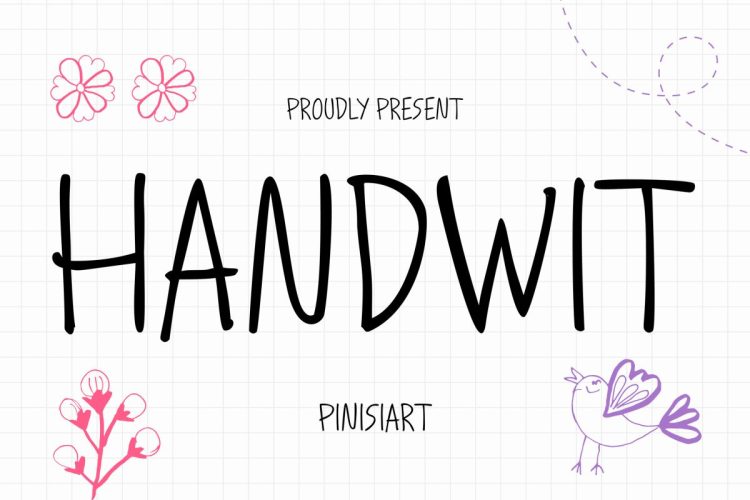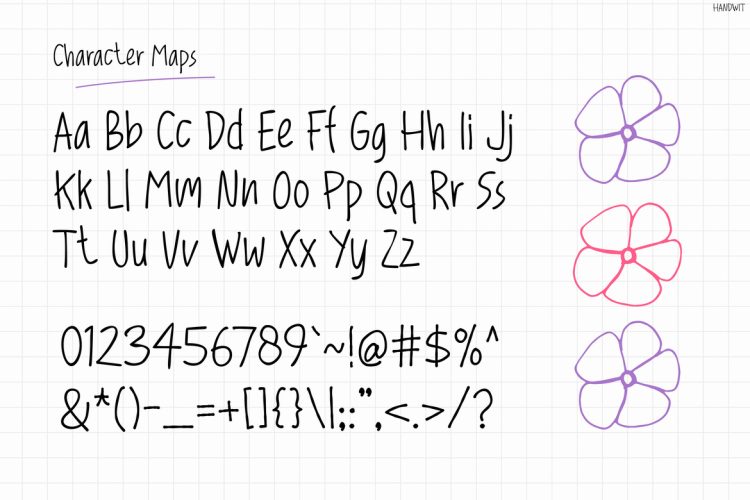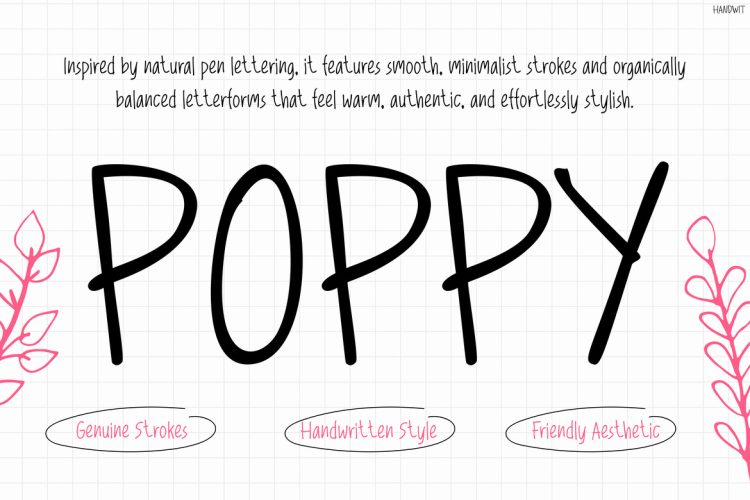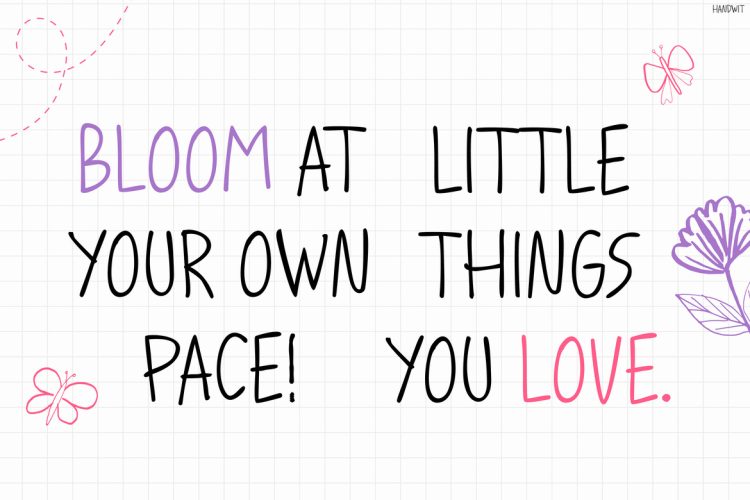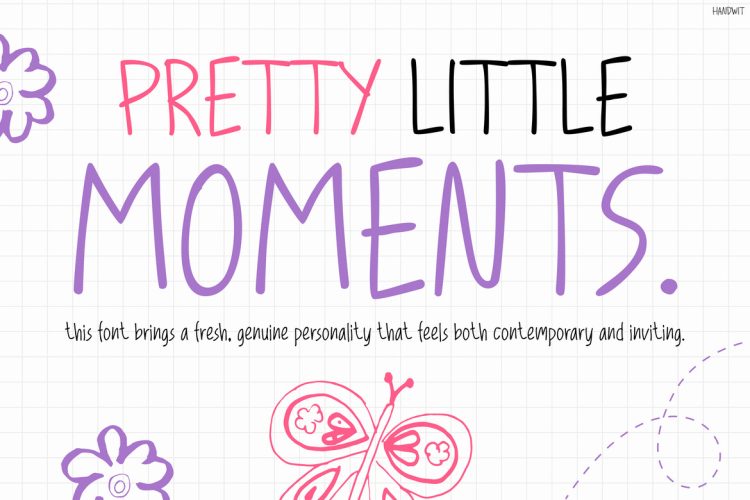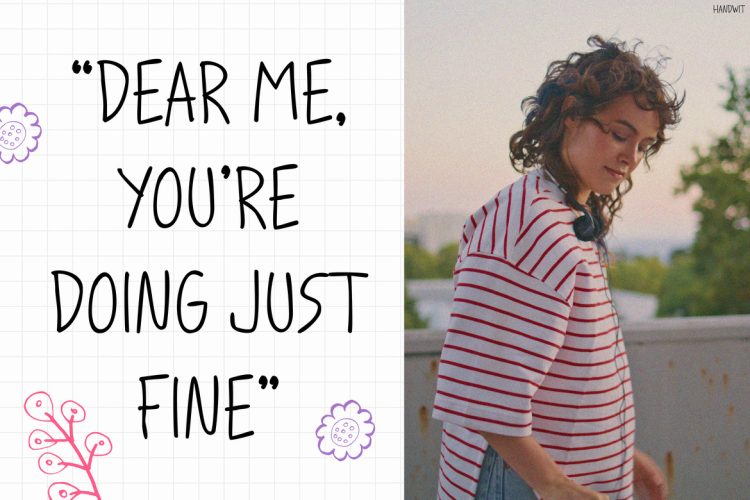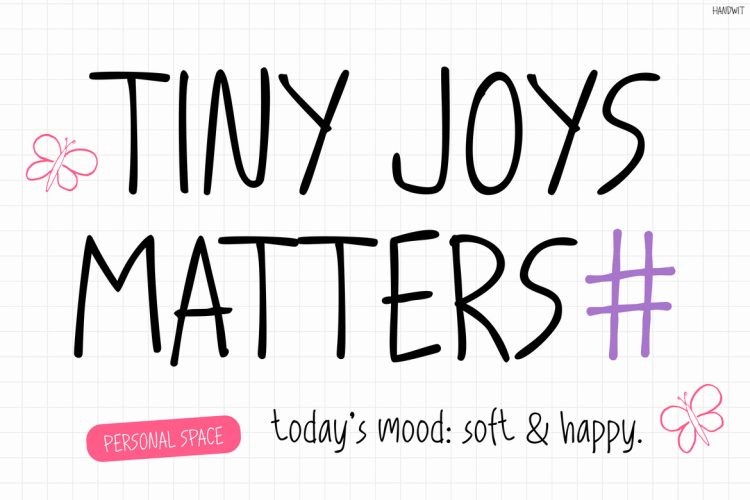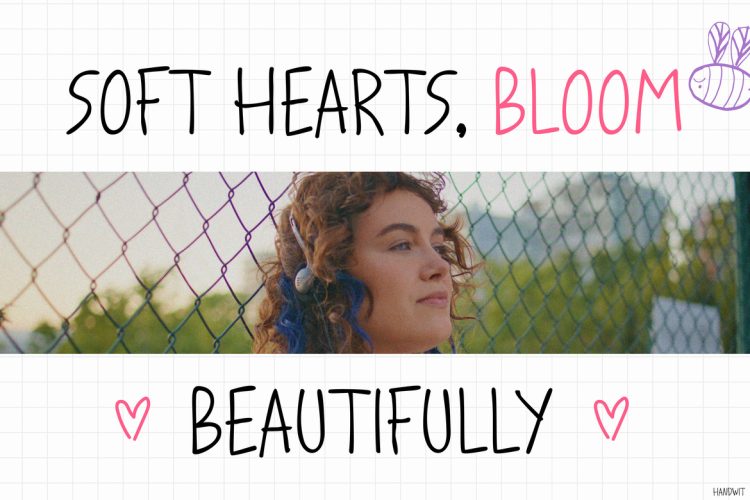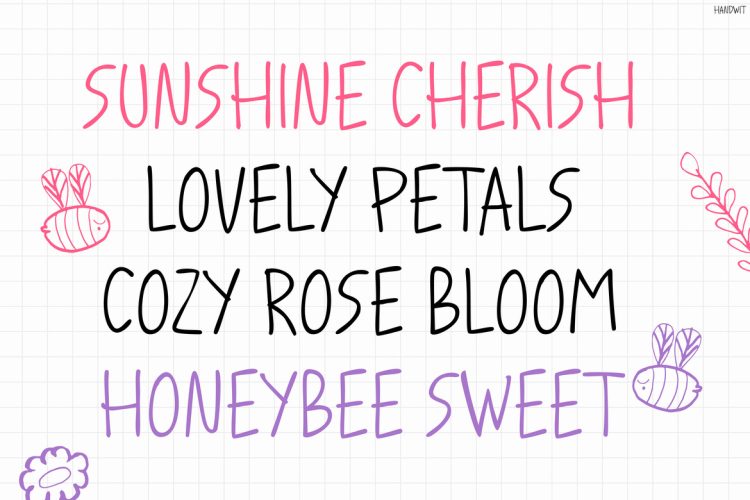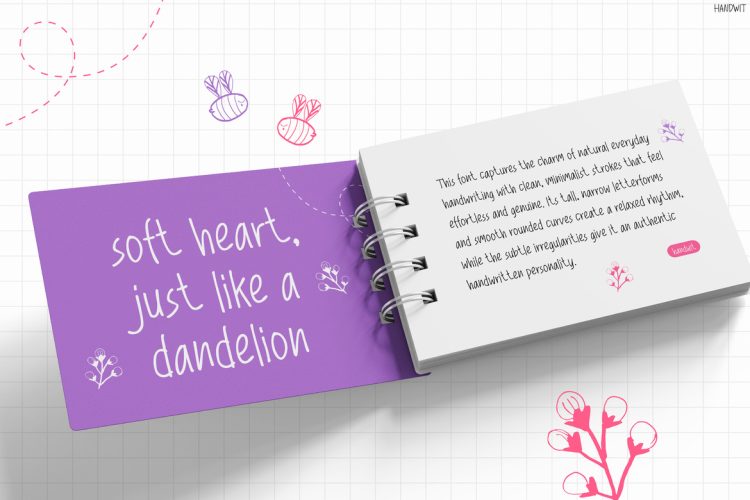
Handwriting Font Handwit โ Write Every Feeling with Heart
Handwriting Font Handwit captures the warmth of genuine handwriting with smooth, relaxed strokes that make every word feel personal and inviting. Unlike ordinary handwritten fonts, Handwit embraces natural imperfections that create authentic charm and effortless beauty. Moreover, its clean letterforms balance simplicity with personality, while its playful rhythm keeps every message friendly and easy to read. As a result, your designs feel more human, heartfelt, and memorable. Whether you’re crafting a thoughtful quote or building a charming brand, Handwit helps every sentence connect naturally with your audience.
Made for Stories That Feel Real
Handwit brings emotion into every creative project through soft curves and an organic writing style. Not only does it add a personal touch, but it also creates an approachable look that feels genuine across both print and digital media. In addition, its versatile character fits greeting cards, lifestyle branding, journals, planners, social media posts, cafรฉ menus, beauty packaging, wedding stationery, scrapbook projects, children’s products, inspirational quotes, blogs, and handmade business branding. Likewise, the balanced spacing keeps every composition neat, while the casual flow makes every headline feel relaxed and expressive. Consequently, your designs communicate warmth, kindness, and creativity with ease.
Handwriting Font Handwit Perfect For
- Greeting cards
- Lifestyle branding
- Wedding invitations
- Journals and planners
- Beauty packaging
- Cafรฉ menus
- Social media graphics
- Handmade product branding
Turn Simple Words into Beautiful Moments
If you want typography that feels warm, honest, and full of personality, Handwriting Font Handwit is ready to become your creative companion. Furthermore, its natural handwritten style transforms ordinary text into meaningful visual stories. As a result, every design feels more authentic and emotionally engaging. Finally, choose Handwit today and let every letter leave a heartfelt impression that people will remember.